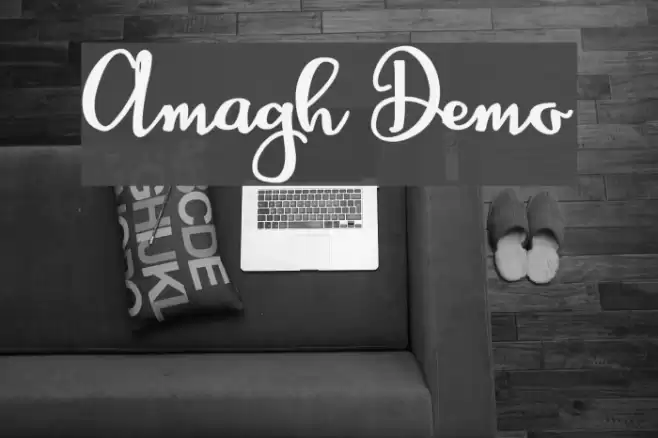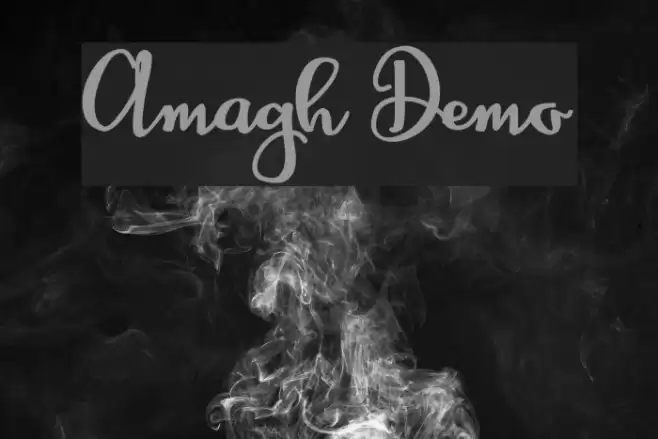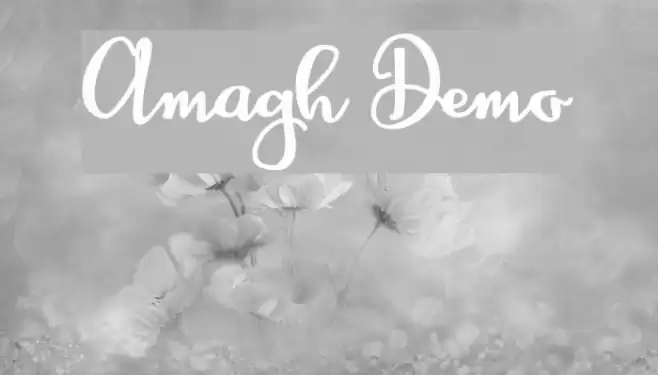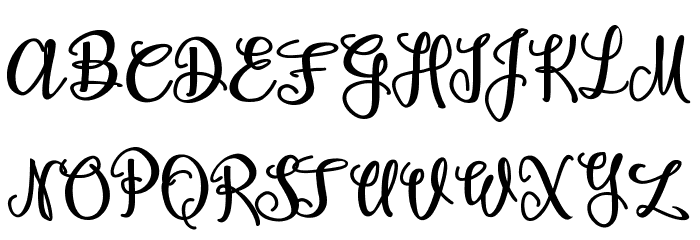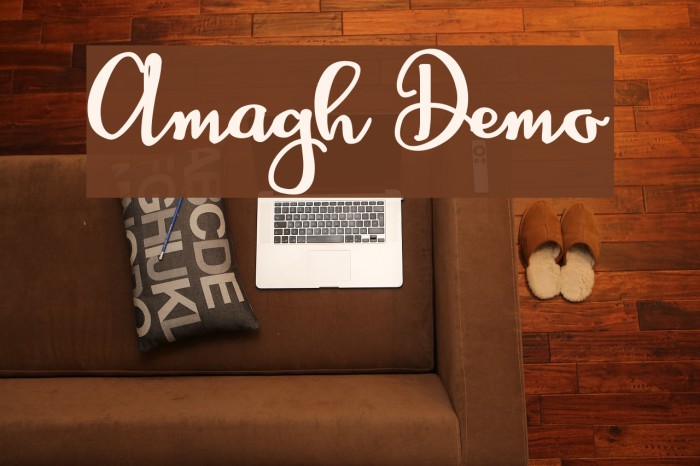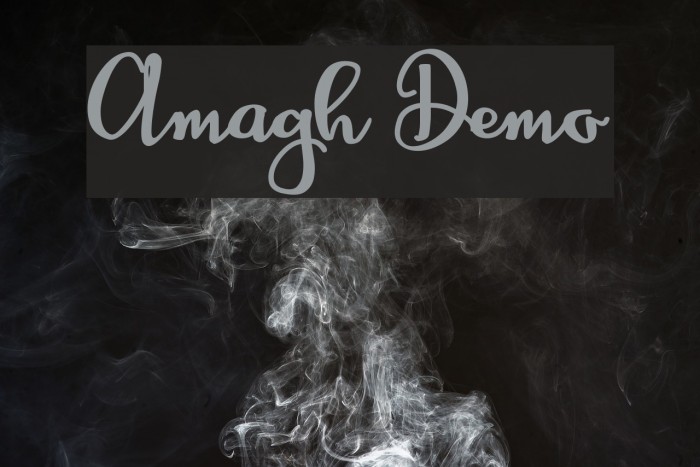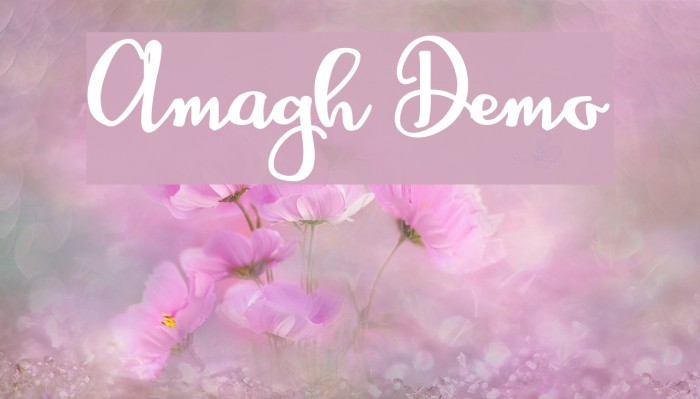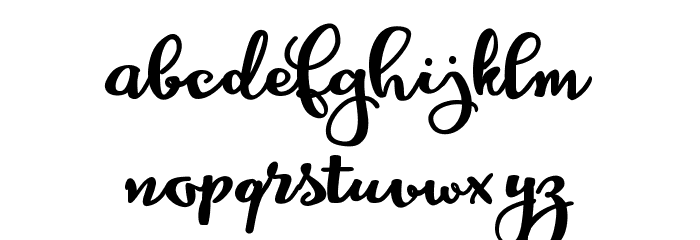
Amagh Demo Font
Amagh Demo Description
This font features an elegant and flowing script style, characterized by its intricate and decorative letterforms. The uppercase letters exhibit a sophisticated flair with extended loops and swashes, creating a sense of movement and grace. The lowercase letters maintain a consistent style, with smooth curves and a slightly playful touch. The font's design is both artistic and legible, making it suitable for a variety of creative applications. Its unique charm is enhanced by the balanced contrast between thick and thin strokes, adding to its visual appeal.
An elegant and flowing script font with decorative letterforms and graceful swashes from Uncategorized fonts.